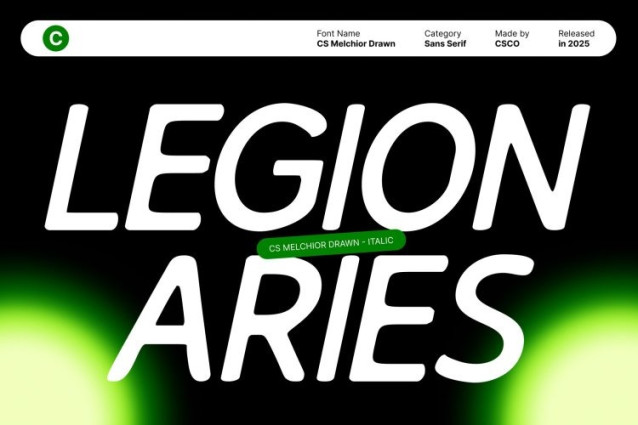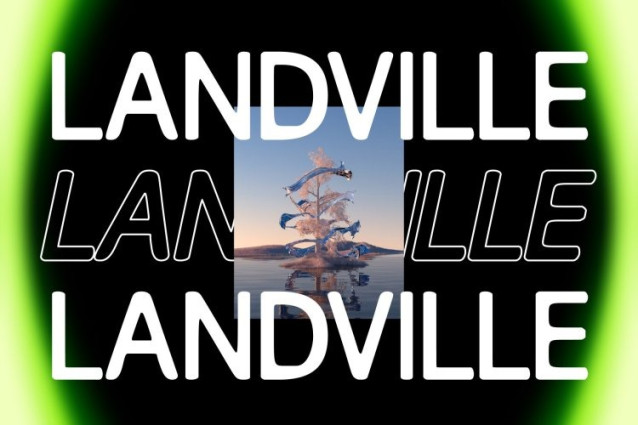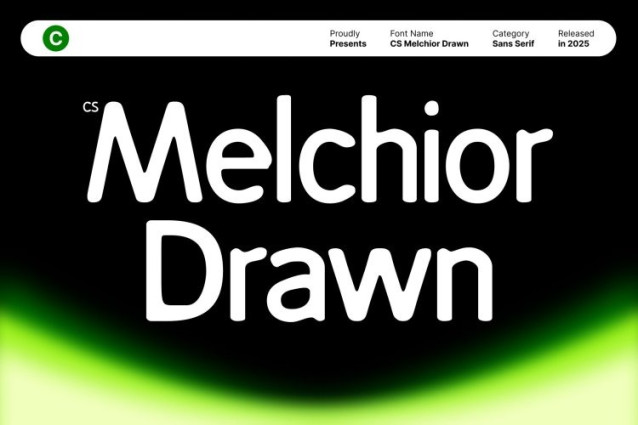
CS Melchior Drawn Font This is a contemporary sans serif font defined by clean geometry, sharp lines, and well-balanced curves. Its modern construction delivers a structured and refined appearance, while the subtle drawn texture introduces a soft human touch that prevents the design from feeling overly rigid. This balance creates a font that feels precise, modern, and visually confident.
High Readability with Thoughtful Proportions
Carefully designed spacing and proportions ensure excellent readability across various sizes and applications. Each letterform maintains consistency and clarity, making suitable for both prominent headlines and longer text blocks. Its neat structure communicates order, stability, and professionalism without sacrificing visual appeal.
Ideal for Corporate and Modern Branding
This font works exceptionally well for corporate branding, websites, presentations, and professional communication materials. Its clean geometric style conveys trust, efficiency, and modernity, while the drawn detail adds subtle character and warmth. This makes it ideal for brands that want to appear polished yet approachable.
Versatile for Contemporary Design Needs
From editorial layouts and user interfaces to signage, packaging, and identity systems, this font adapts effortlessly. Its modern elegance and functional clarity make it a dependable choice for designers seeking a professional font with contemporary character.